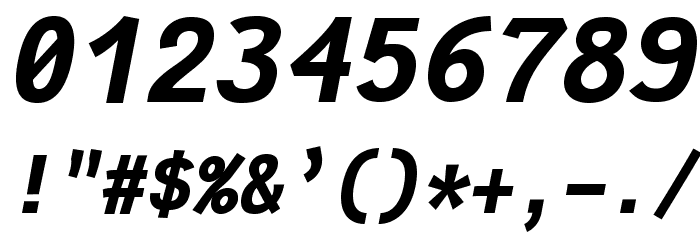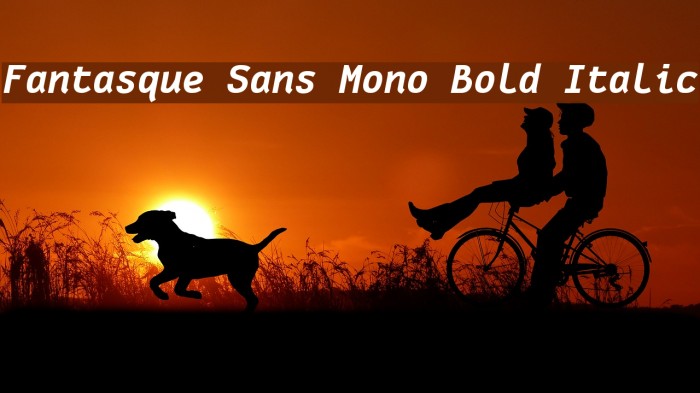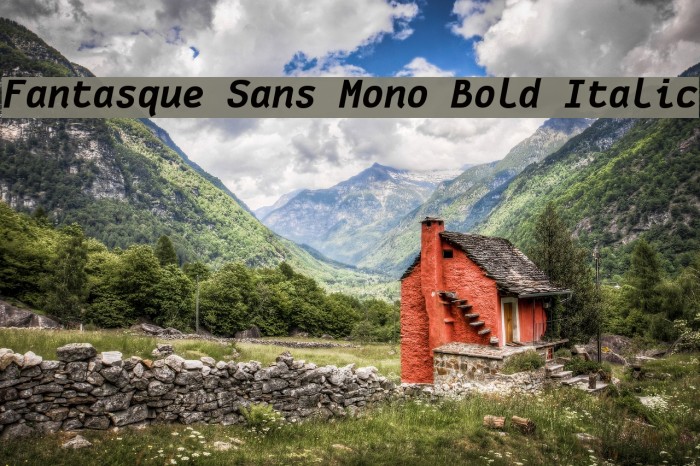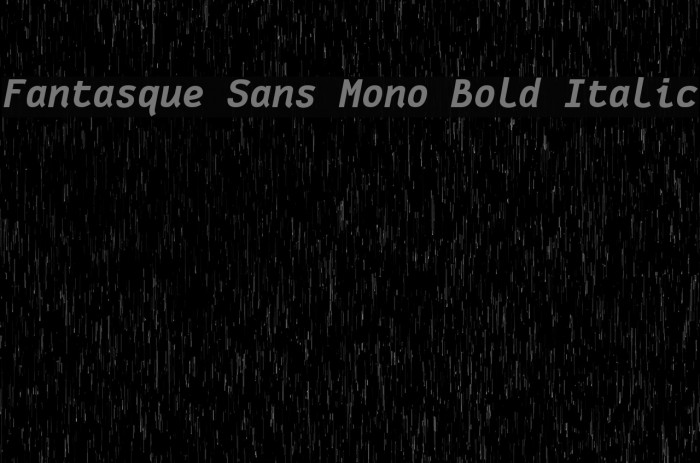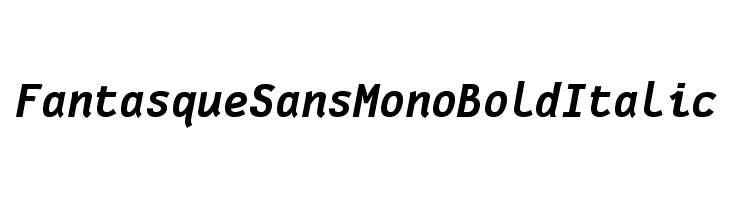
Fantasque Sans Mono Bold Italic Font
This font exhibits a playful and modern monospaced style, characterized by its bold and italicized form. Each character maintains a consistent width, typical of monospaced fonts, which is ideal for coding and technical documentation. The italic slant adds a dynamic and informal touch, making it stand out from traditional monospaced fonts. The bold weight enhances readability, ensuring that each letter is distinct and clear. The rounded edges and smooth curves contribute to a friendly and approachable appearance, while the consistent stroke width provides a balanced and harmonious look across all characters.
A bold, italicized monospaced font with a modern and playful style.
- Proposed Projects: Ideal for coding environments, technical documentation, and creative design projects requiring a modern monospaced font.
- Use Case: Coding, Technical documentation, Creative design